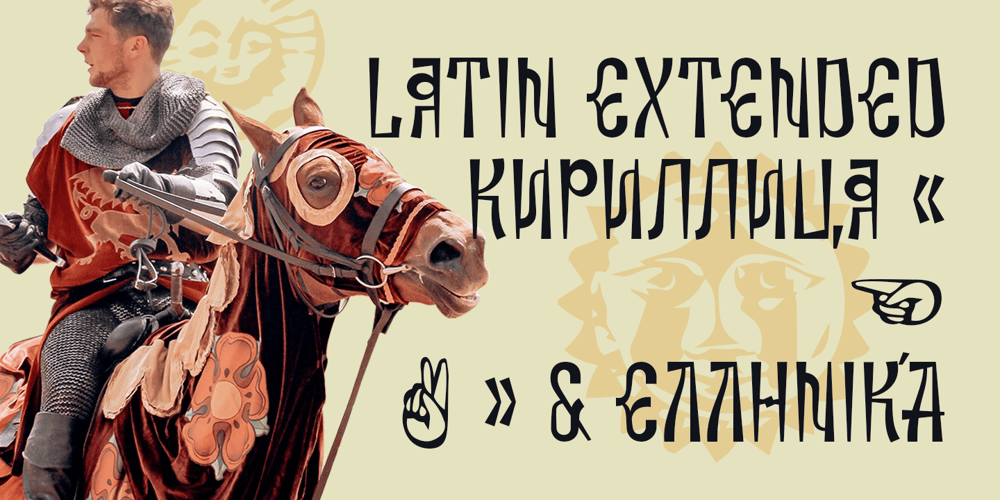
Greuceanu
Greuceanu font
Greuceanu Font Family was designed by Bogdan Balatchi and published by DePlictis Types. Greuceanu contains 1 styles and family package options. “Greuceanu” is the the name of a brave romanian fairy tale character and his mission was to eliberate de Sun and the Moon that were stolen by some Dragon like creatures that in romanian folklore they are called “ Zmei”. It inspired me to create this decorative uppercase display typeface with strong influences from old cyrillic writing and also a touch of fun and geometrical construction explorations. Besides Extended Latin Support it includes also Cyrillic and Greek alphabets as you already can expect from most of DePlictis Types releases. This decorative typeface goes well for use in book covers and headlines and only your creativity is the limit of its usability.